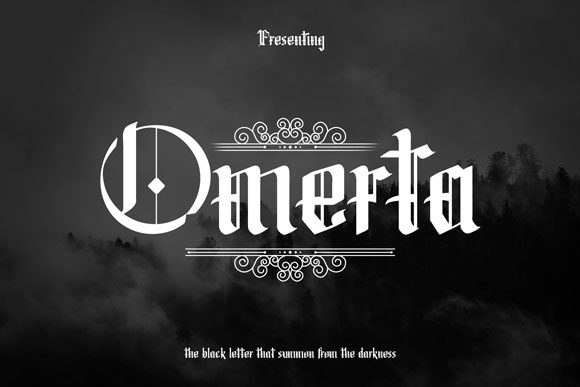
In a world immersed in monotonous typography, there exists a font that stands at the vanguard of individuality and style: Omerta Font. A creation by anomali.bisu, Omerta Font is a captivating blackletter font that defies convention and opens up a realm of creative possibilities.
Immerse yourself in the world of Omerta Font, where the past meets the future in a harmonious blend of classicism and modernity. Each letter, meticulously crafted, exudes a distinct charm that is both timeless and evocative. Its bold strokes, sharp angles, and intricate details command attention, leaving an indelible mark on the hearts and minds of your audience.
Whether you're a seasoned designer seeking to elevate your projects or a novice just starting their typographic journey, Omerta Font is the perfect companion. Experience the thrill of vertical type, where letters dance effortlessly, creating a symphony of visual delight. Transform your designs into captivating works of art that captivate and enthrall.
Indulge in the versatility of Omerta Font, a font that seamlessly adapts to diverse design aesthetics. From vintage-inspired projects to contemporary masterpieces, Omerta Font effortlessly elevates each concept, adding a touch of elegance and sophistication. Its bold personality enlivens logos, posters, headlines, and branding, leaving a lasting impression that resonates with your audience.
Embrace the indomitable spirit of Omerta Font and unlock your creative potential. Its captivating allure will transform your designs, leaving a legacy of visual impact that will stand the test of time. Join the ranks of discerning designers who have discovered the power of Omerta Font and witness the transformation of your creative vision into a stunning reality.